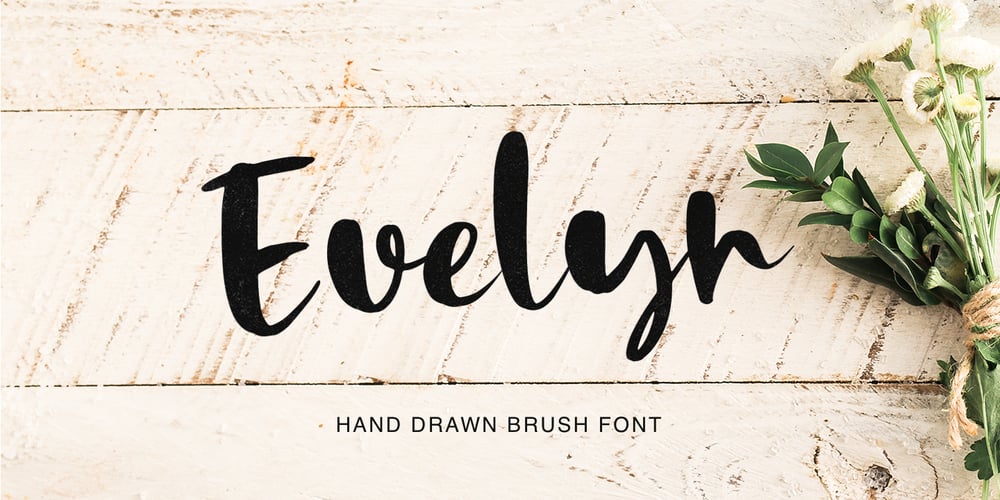
Evelyn Font Family was designed by Pavel Larin and published by Larin Type Co. Evelyn contains 1 styles and family package options. Evelyn is a hand drawn bold brush font. Fall in love with its incredible charm and turn any design idea into a stunning progect one. This font will fit into any project, use this font for branding or create a logo, a beautiful frame for your home, or use book covers, stationery, marketing, a blog, magazines and much more for your small business.